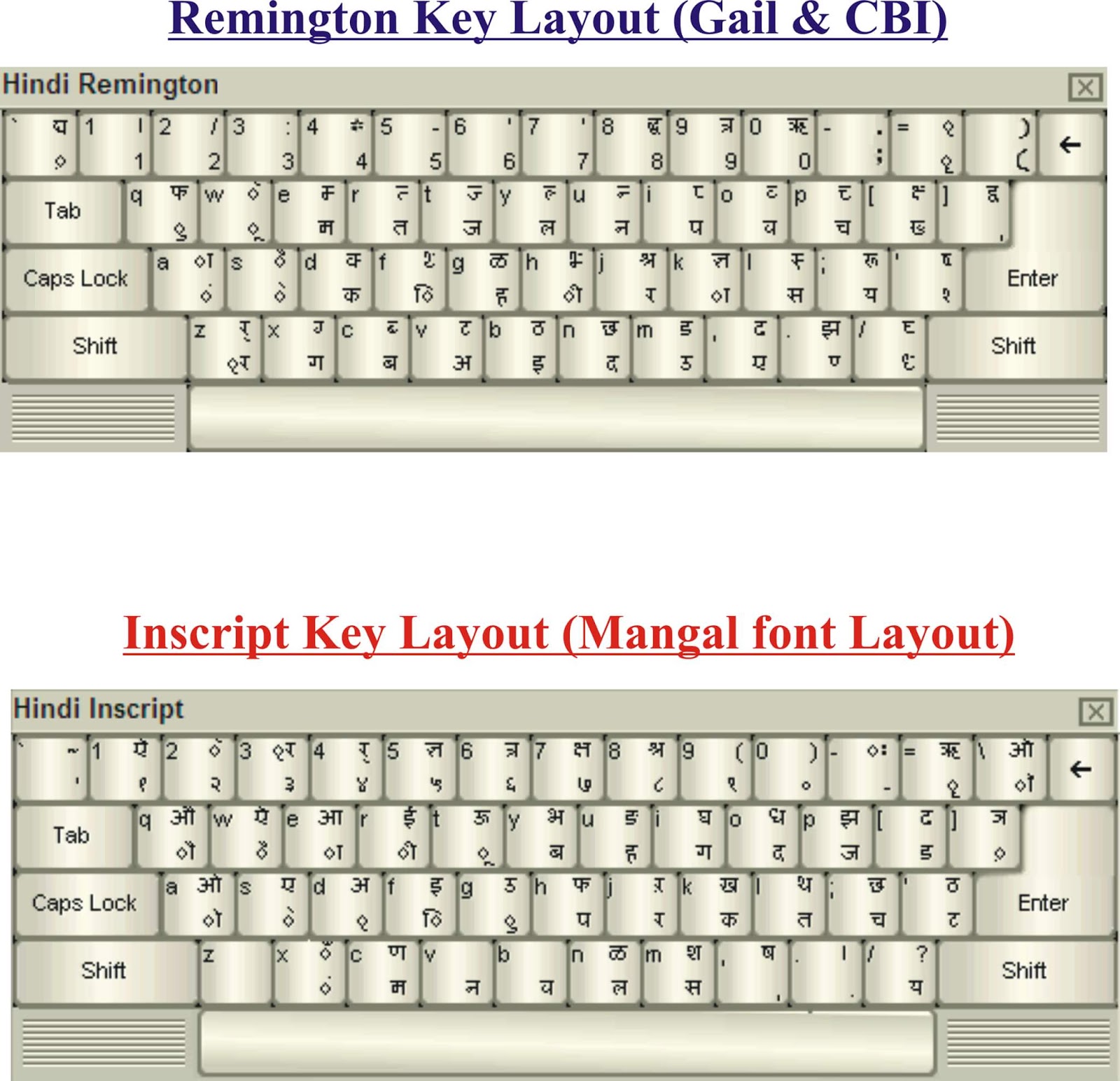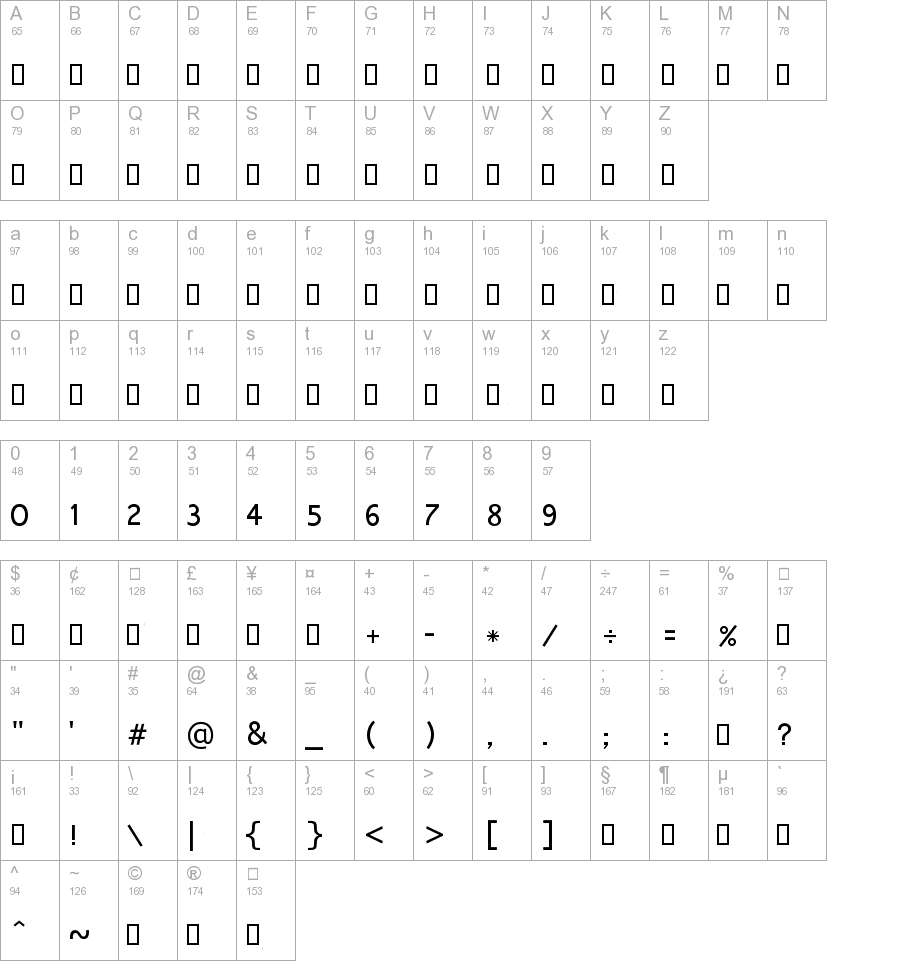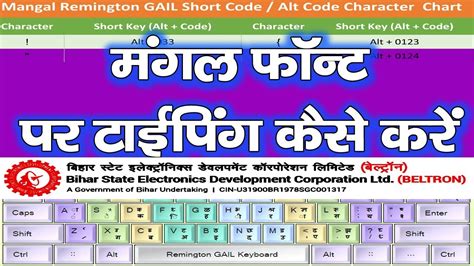
Mangal Font Download
Mangal Font Download - Web mangal font used in many typing test exam in india like cpct, ssc, crpf, up police constable computer operator, cisf, fci.
Web mangal font used in many typing test exam in india like cpct, ssc, crpf, up police constable computer operator, cisf, fci.